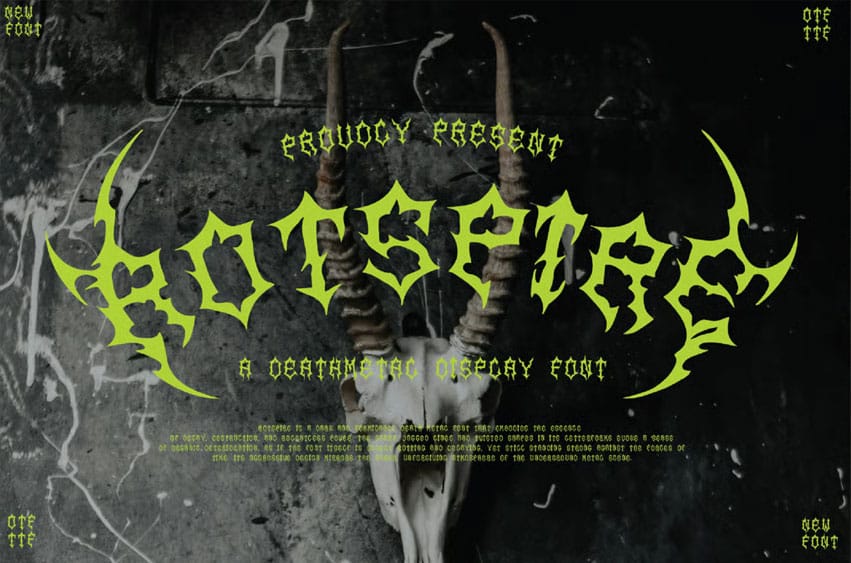
Rotspire Deathmetal Font is a dark and formidable death metal font that embodies the essence of decay, destruction, and relentless power. The sharp, jagged lines and twisted shapes in its letterforms evoke a sense of organic deterioration, as if the font itself is slowly rotting and decaying, yet still standing strong against the forces of time.
Its aggressive design mirrors the harsh, unforgiving atmosphere of the underground metal scene.